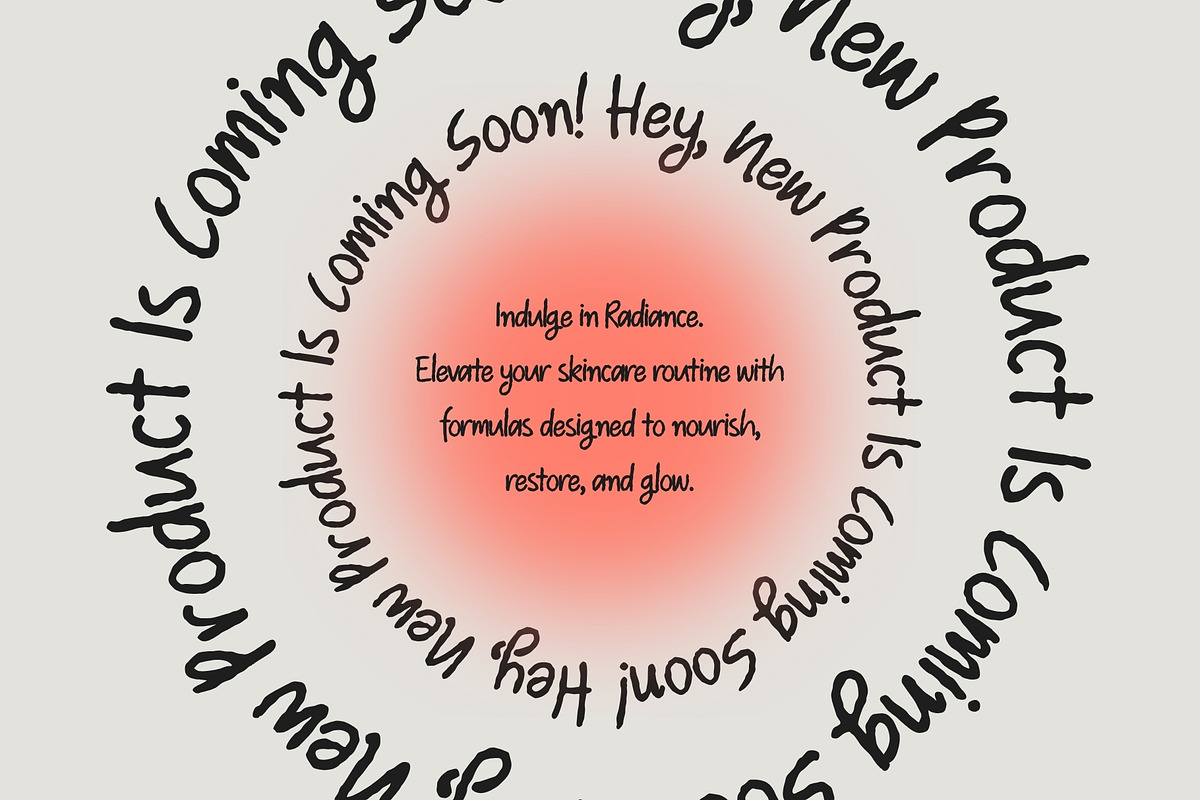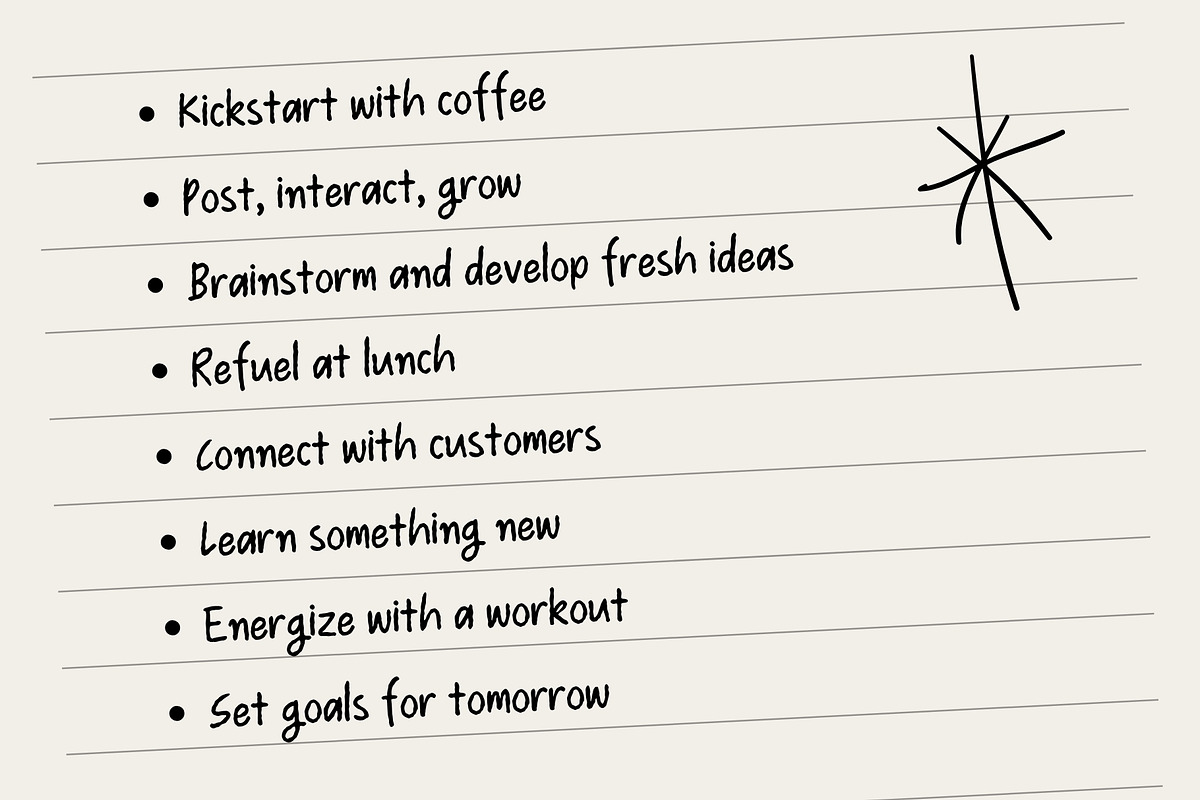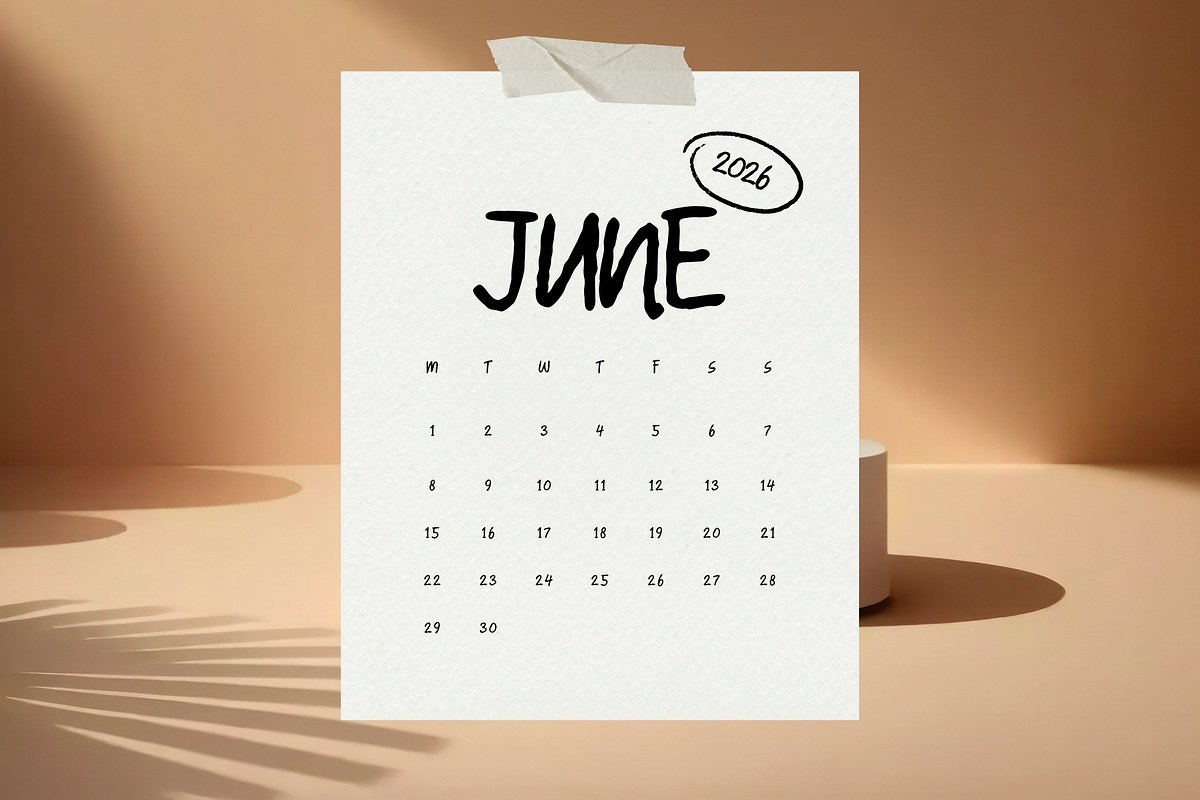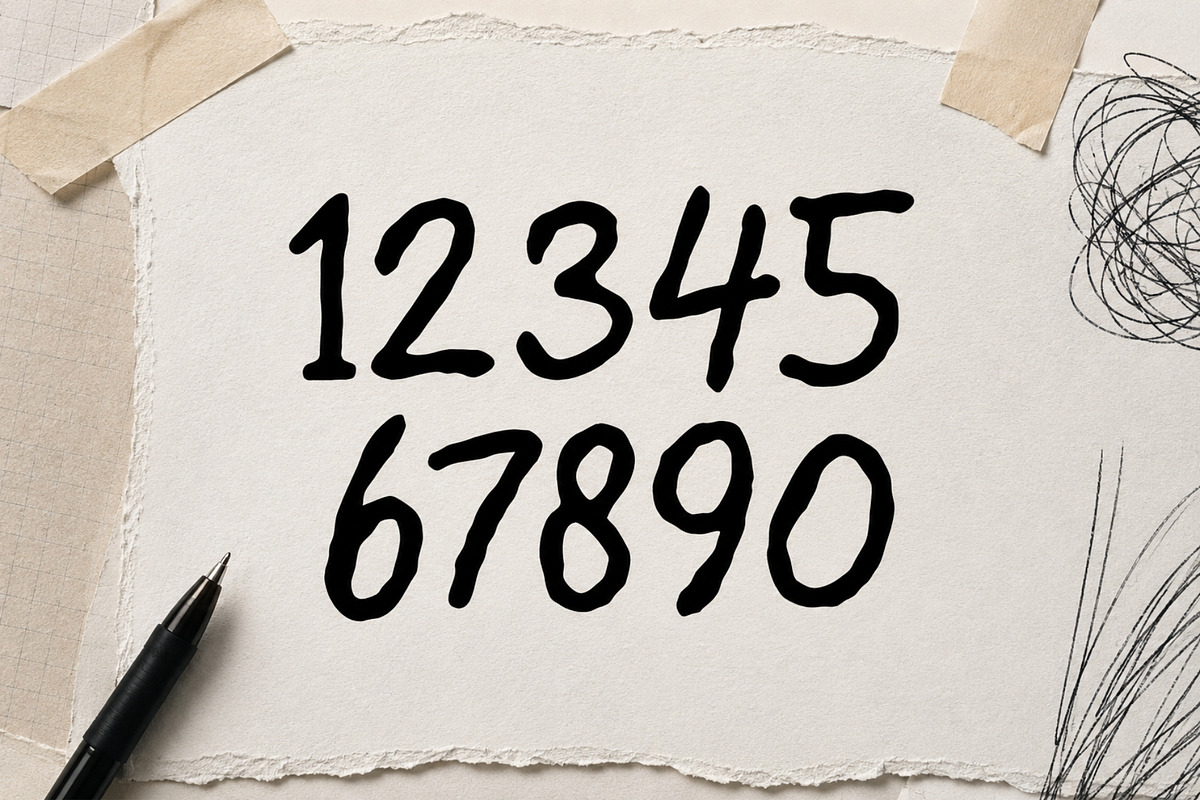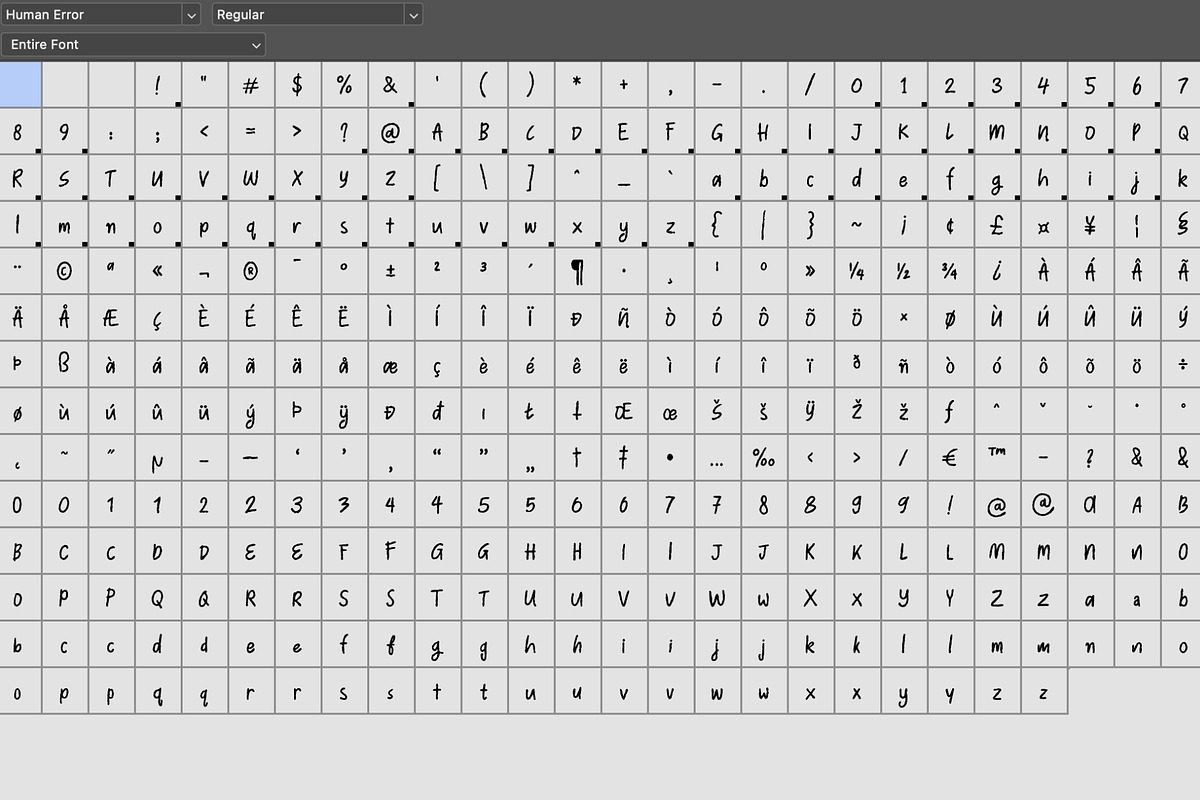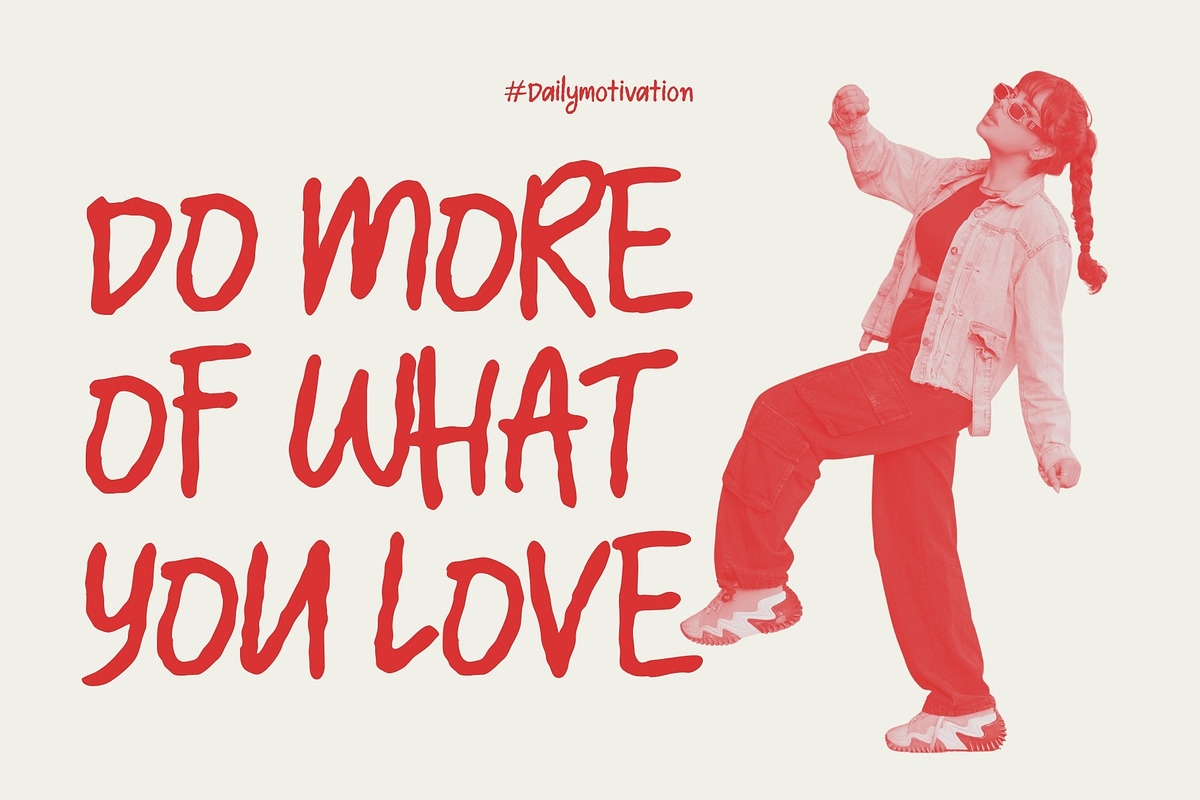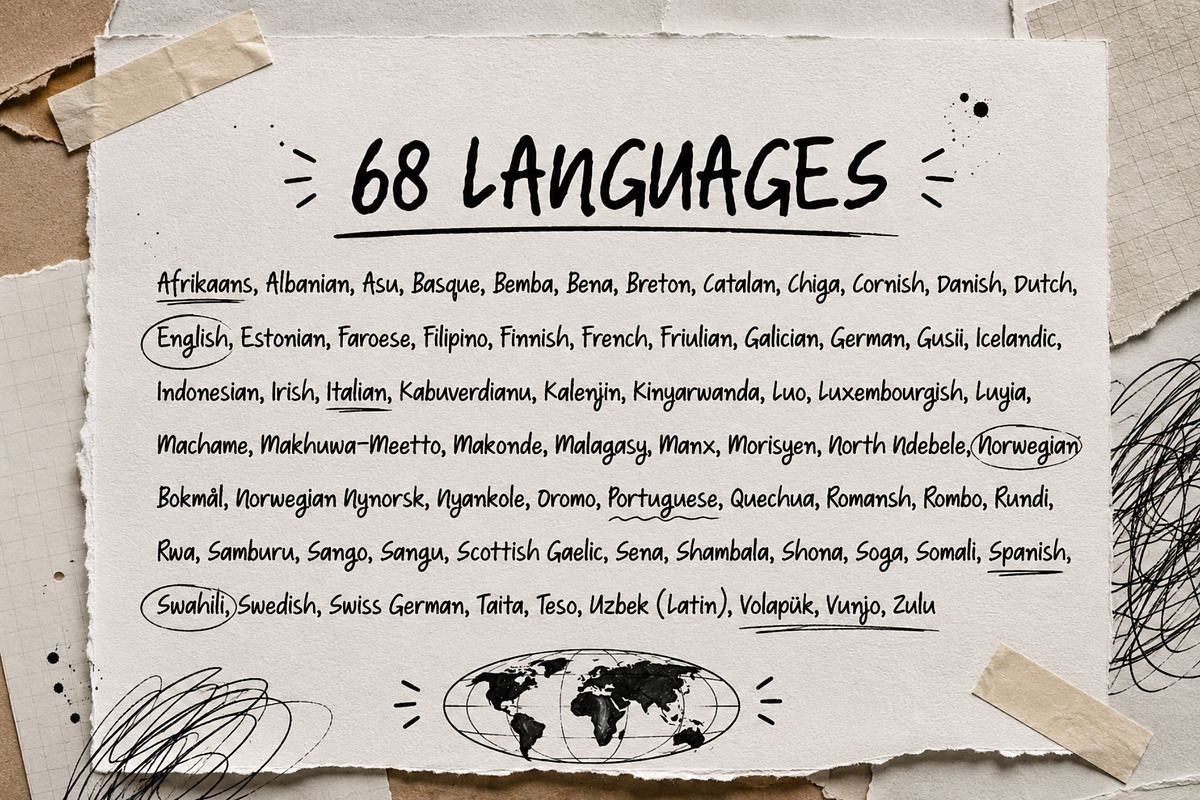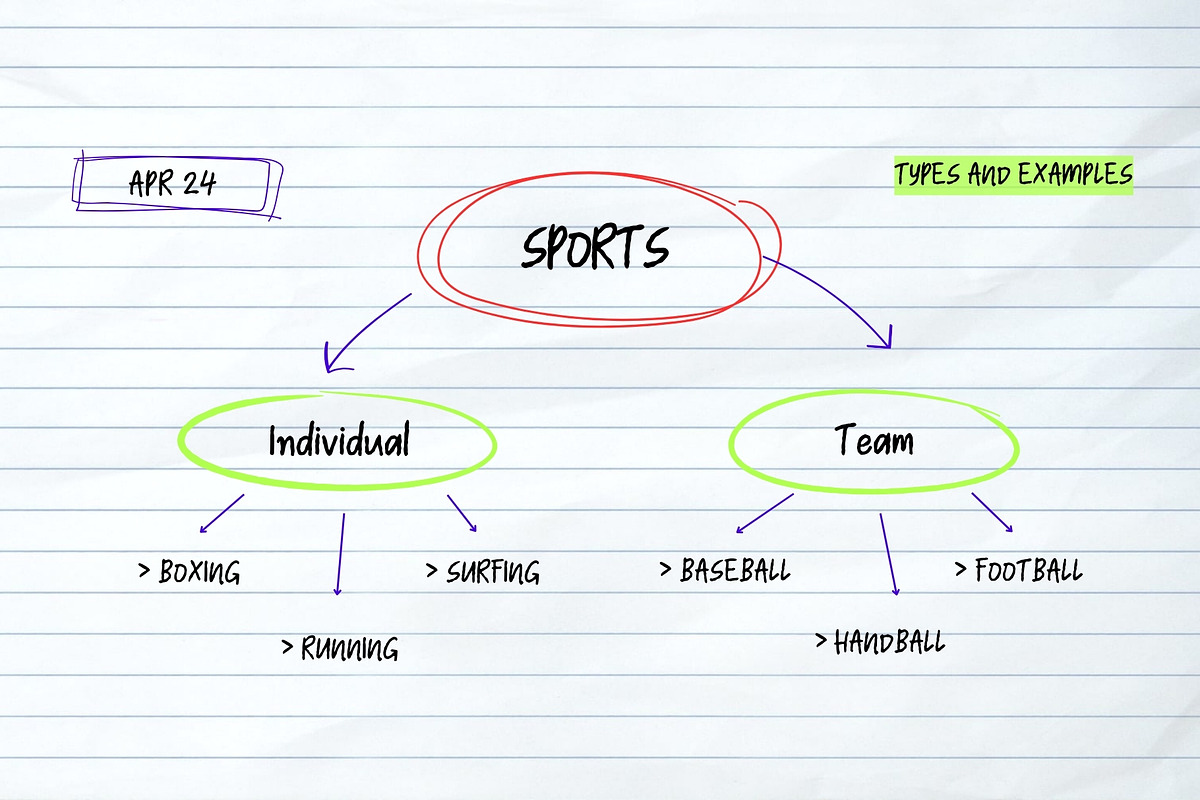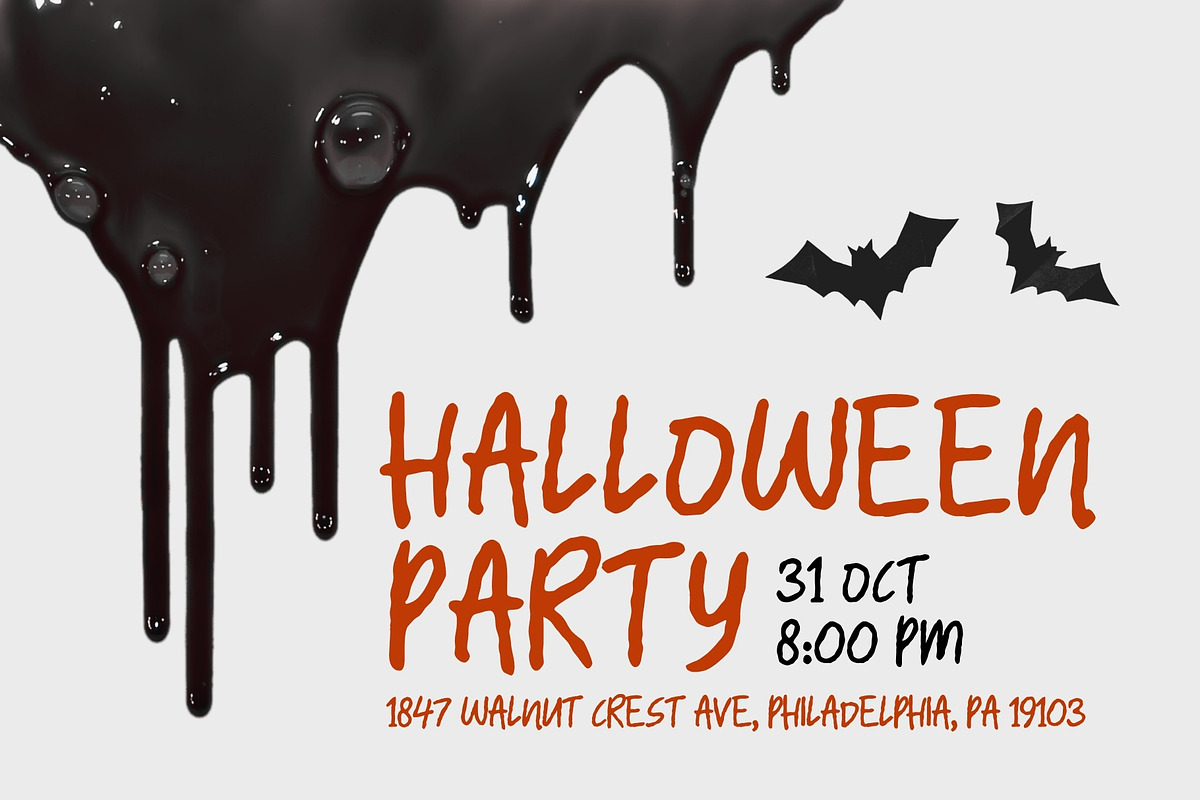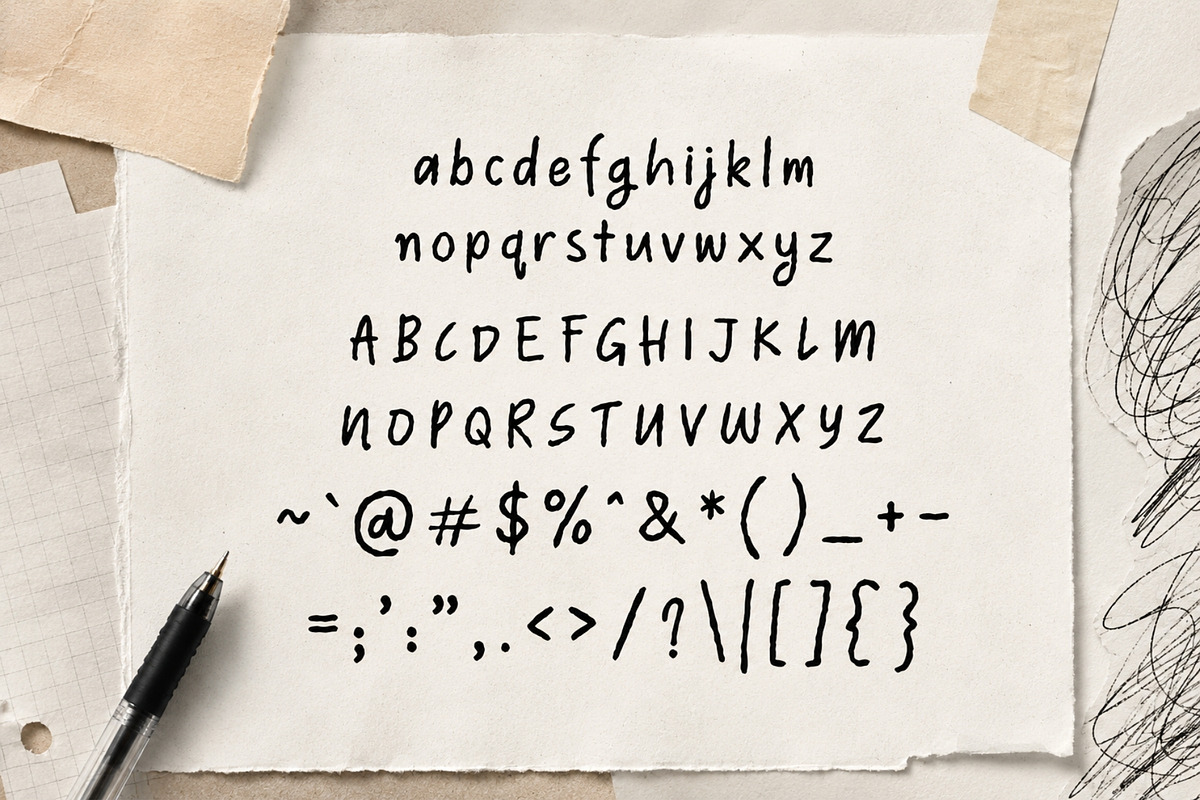
Human Error - Handwritten Font
Human Error captures the beauty of imperfection. Inspired by the natural rhythm of everyday handwriting, this expressive typeface recreates the unmistakable character of real ballpoint pen strokes, complete with subtle pressure changes, organic textures, and the tiny inconsistencies that make handwritten notes feel genuine and alive.
Human Error gives you the freedom to mix structured lettering with flowing handwriting for designs that feel personal, authentic, and effortlessly human. Use each letter independently or combine them together to create beautiful visual contrast across your projects (129 Alternatives!)
Unlike sterile digital handwriting fonts, Human Error embraces the charm of real penmanship. Every character carries the slight imperfections of handwritten ink, making your work feel approachable, handcrafted, and full of personality. Whether you're building a premium brand, designing thoughtful packaging, creating editorial layouts, or crafting heartfelt stationery, Human Error delivers warmth that perfectly polished typography simply can't replicate.
From boutique coffee shops and artisan product labels to wedding invitations, greeting cards, journals, magazines, social media graphics, and creative branding, this versatile typeface adapts beautifully to both modern minimalism and vintage-inspired aesthetics.
Bring warmth, authenticity, and genuine personality to every project with Human Error—the handwritten typeface that celebrates the beauty of being perfectly imperfect.